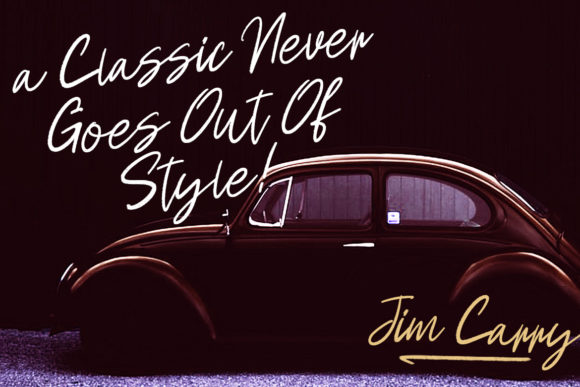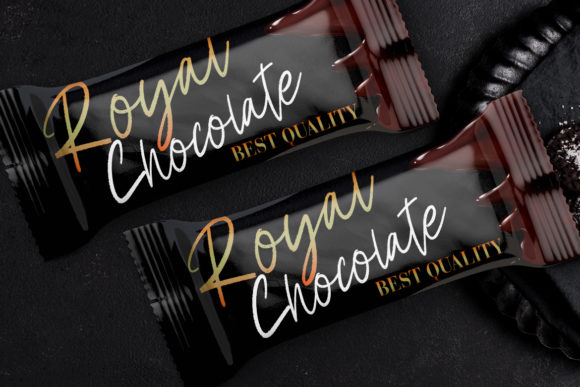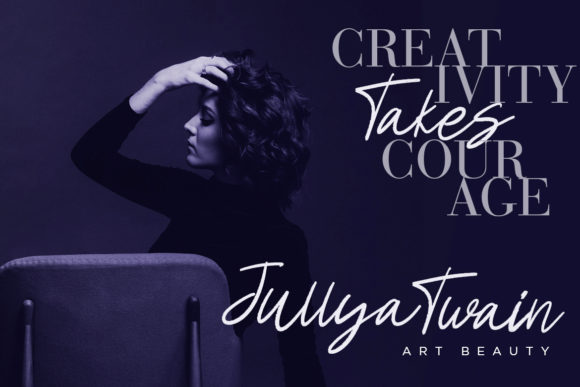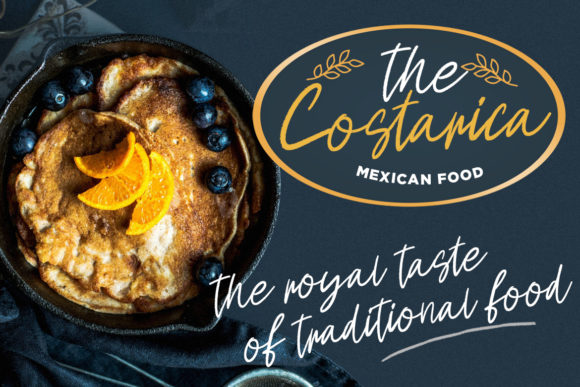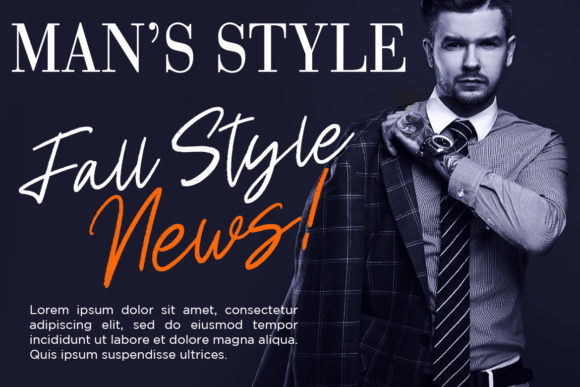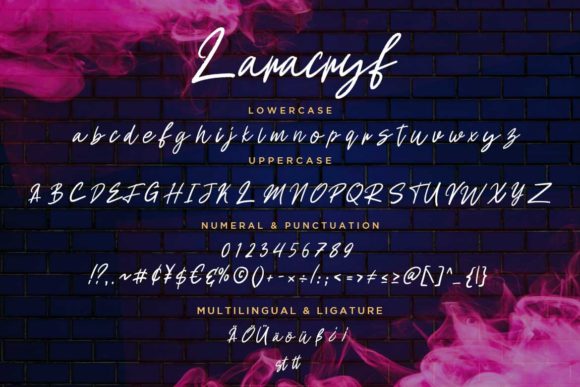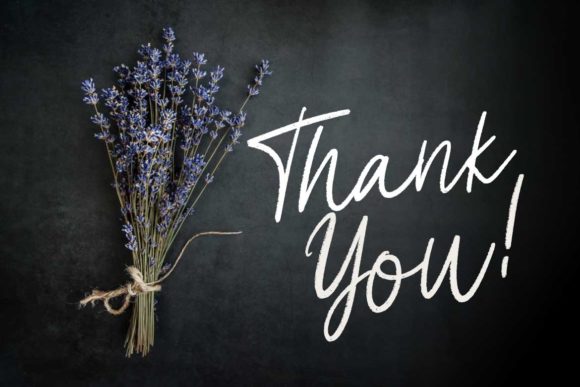
HomeScript FontsLaracryf Font Script Fonts Laracryf Font FacebookXPinterestWhatsApp Laracryf Font Poster 2 Laracryf Font Poster 3 Laracryf Font Poster 4 Laracryf Font Poster 5 Laracryf Font Poster 6 Laracryf Font Poster 7 Laracryf Font Poster 8 About Laracryf Font Laracryf is a fun and cool handwritten font with a bold feel. Get inspired by its smooth appeal. DOWNLOAD NOW People also explored Seelogart Font Helodale Font Hello Baby Font Simple Mandala Font Signature United Font Neptune Font Seamless Patterns Font Begin Again Font Brianna Roses Font 343 0 TagsLaracryf Font Previous articleCarnelian Antique FontNext articleGlossy Night Font LEAVE A REPLY Cancel reply Comment: Please enter your comment! Name:* Please enter your name here Email:* You have entered an incorrect email address! Please enter your email address here Website: Save my name, email, and website in this browser for the next time I comment. Personal Use Free Fontmageddon Personal Use Free Read more about this font BD Console Personal Use Free Read more about this font BD Alm Personal Use Free Read more about this font Wintersoul Personal Use Free Read more about this font BLOG Exploring Font Trends Shaping Communication in the Digital Era Fonts, like all design elements, are subject to trends. They play a crucial role in communicating a brand's personality,... Free vs Paid Fonts: Why Investing in Premium Fonts Is Worth It 5 Fonts That Will Dominate Design Trends in 2026 How to Cut Any Font on Cricut: Convert a Font to SVG (Free)